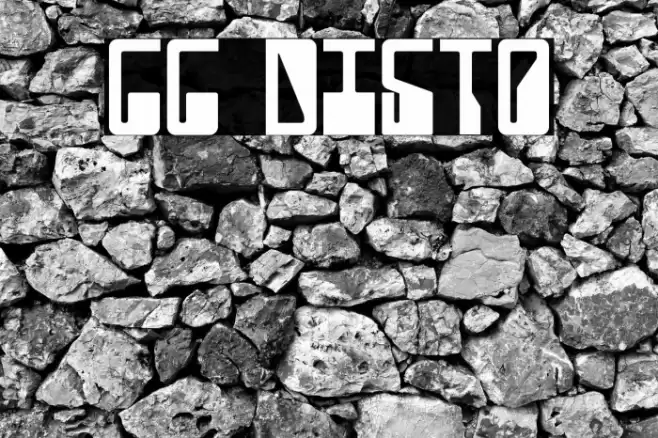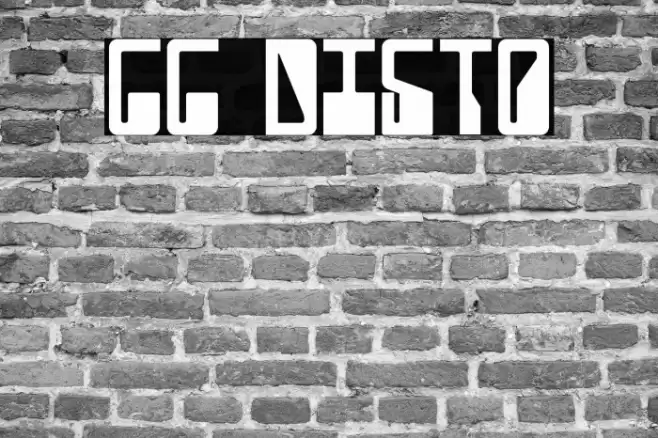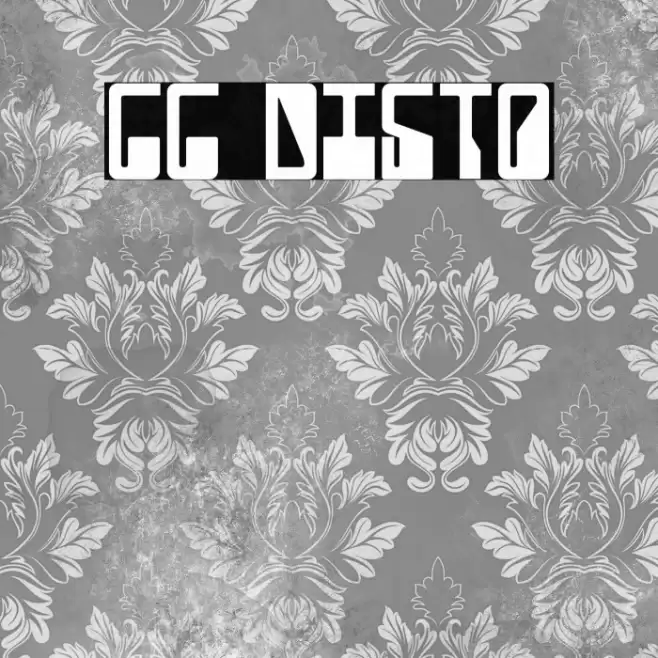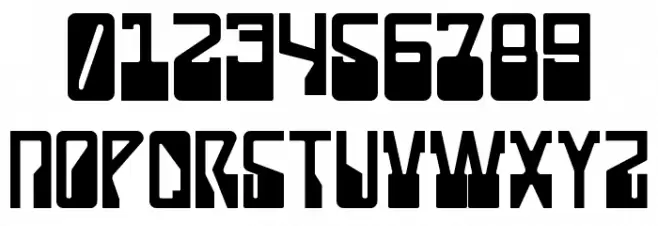
CC Disto Font
CC Disto Description
This font features a bold and geometric design with a futuristic flair. The characters are constructed with sharp angles and solid blocks, creating a sense of strength and modernity. The uppercase letters are particularly striking, with a uniform height and width that gives them a monospaced appearance. The numbers and special characters maintain this bold style, ensuring consistency across all glyphs. The font's unique style makes it ideal for attention-grabbing headlines or logos that require a modern and edgy look.
A bold, geometric font with a futuristic and modern design from Regular fonts.
- Proposed Projects: Ideal for futuristic branding, tech-related projects, video game titles, and modern advertising campaigns.